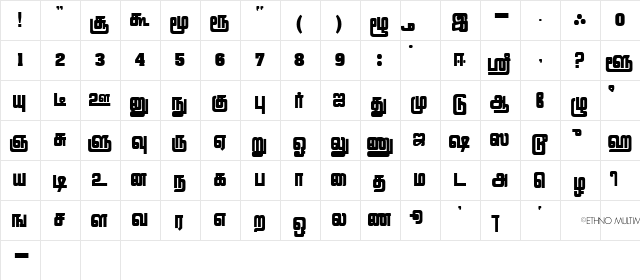
Lathangi Regular
Design Context for Lathangi Typeface
Lathangi is a composed and adaptable typeface that performs quietly and consistently across a wide range of design contexts.